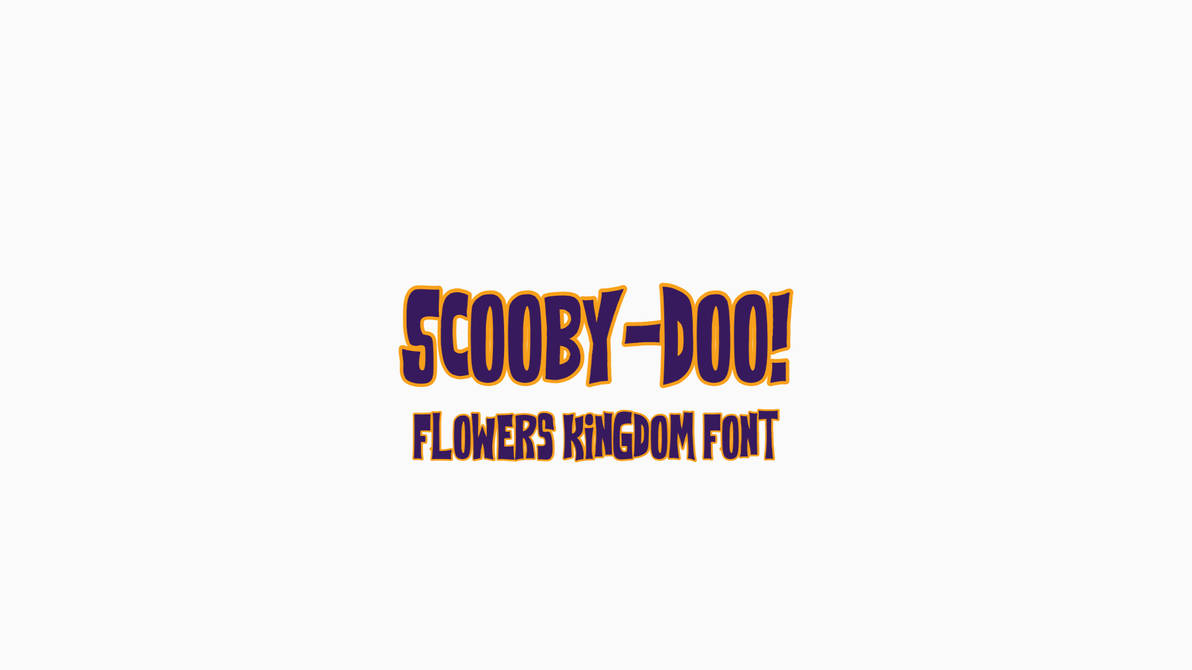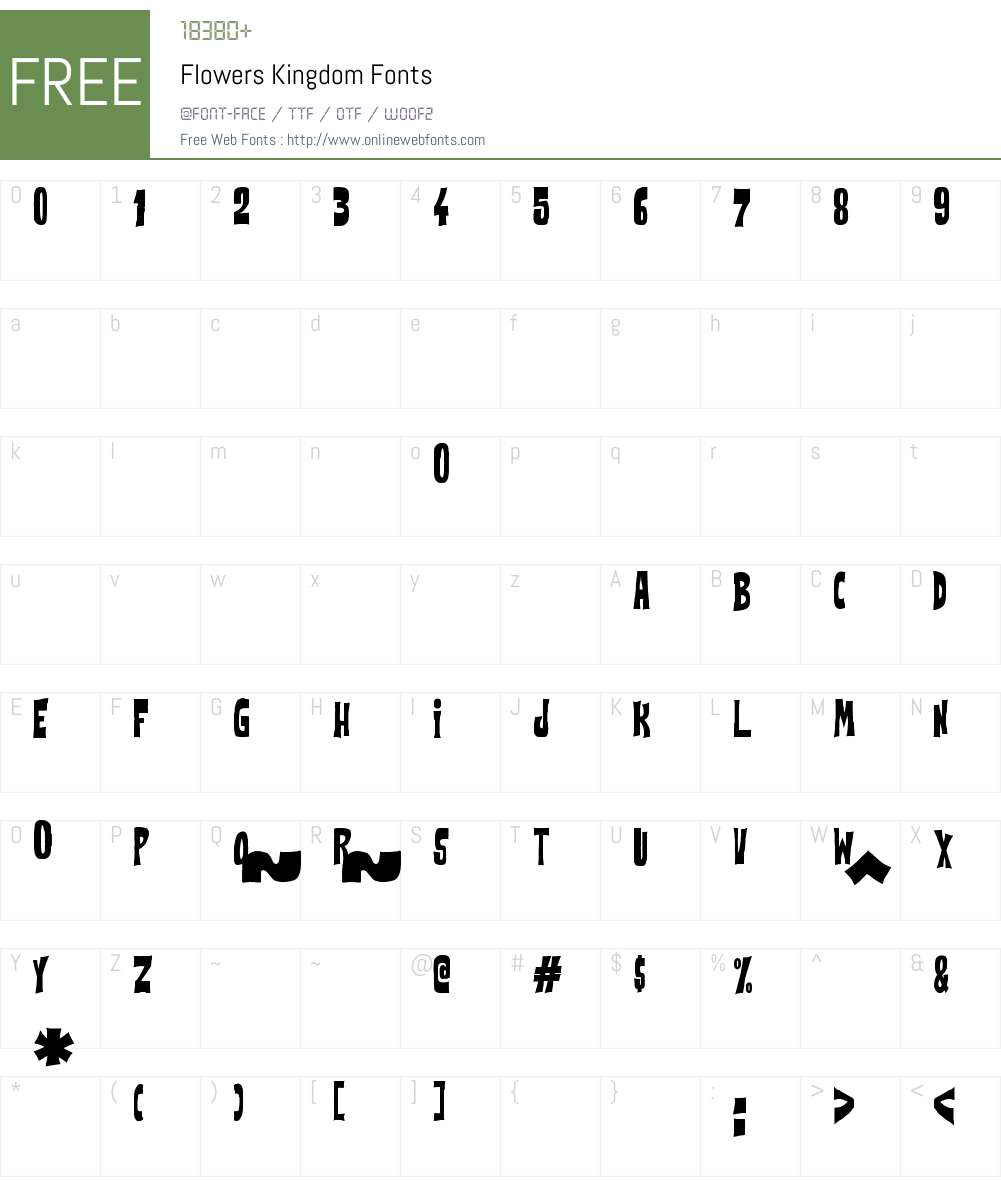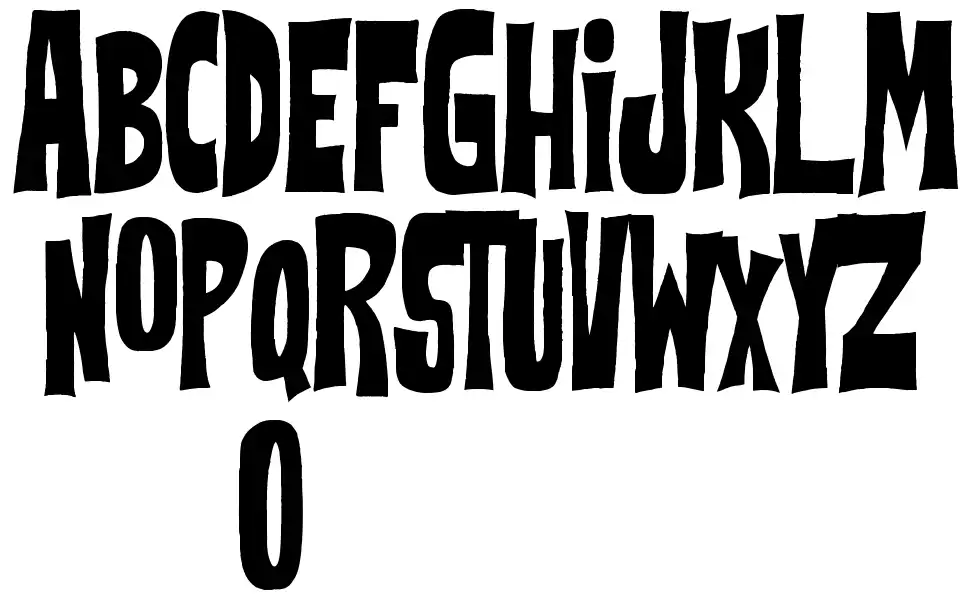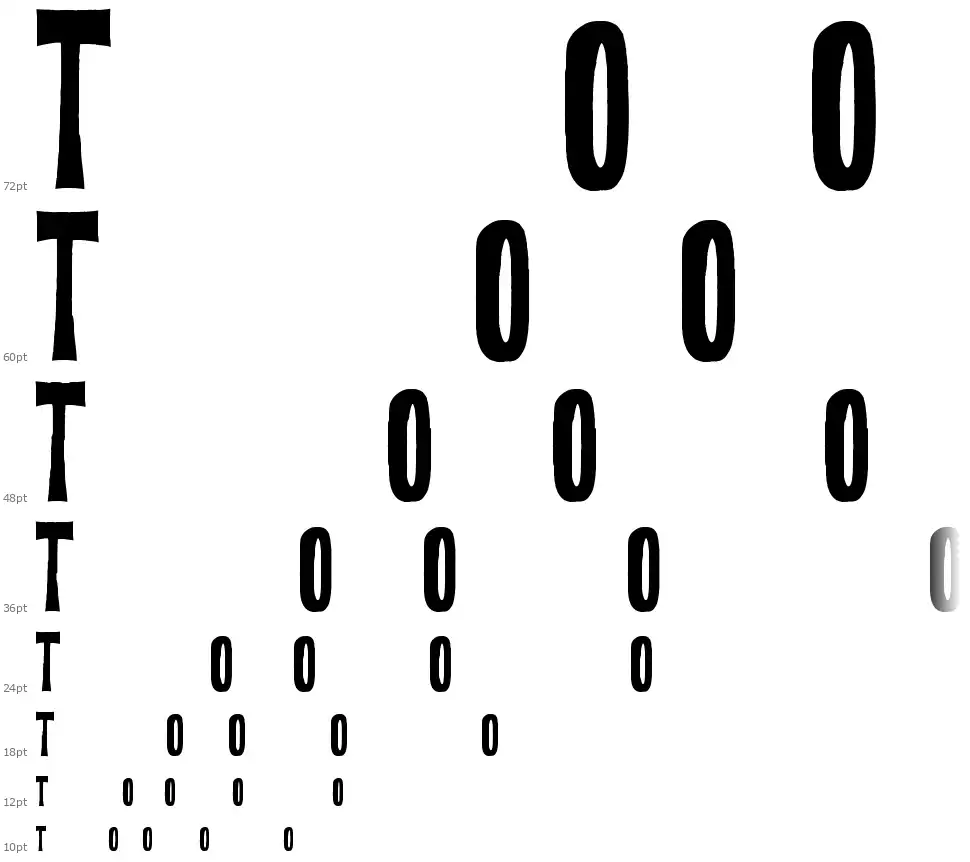
Flower Kingdom Font . Flowers kingdom is a fancy type font that can be used on any. flowers kingdom font has a retro, chunky, and funky vibe that was designed to express that mood from your content you can use. The flowers kingdom font was designed by imagex. flowers kingdom font download is available free from fontget. download flowers kingdom font for free! — flowers kingdom à € by imagex. download and install the flowers kingdom font for free from ffonts.net. ️ this font has been downloaded 300+ times. 721,453 downloads (414 yesterday) free for. flowers kingdom is the perfect font for all your fun designs. download free flowers kingdom font, view its character map and.
721,453 downloads (414 yesterday) free for. — flowers kingdom à € by imagex. flowers kingdom is the perfect font for all your fun designs. flowers kingdom font download is available free from fontget. The flowers kingdom font was designed by imagex. download free flowers kingdom font, view its character map and. flowers kingdom font has a retro, chunky, and funky vibe that was designed to express that mood from your content you can use. download and install the flowers kingdom font for free from ffonts.net. download flowers kingdom font for free! Flowers kingdom is a fancy type font that can be used on any.
Flower Kingdom Font ️ this font has been downloaded 300+ times. download free flowers kingdom font, view its character map and. download flowers kingdom font for free! flowers kingdom font download is available free from fontget. ️ this font has been downloaded 300+ times. The flowers kingdom font was designed by imagex. Flowers kingdom is a fancy type font that can be used on any. — flowers kingdom à € by imagex. flowers kingdom font has a retro, chunky, and funky vibe that was designed to express that mood from your content you can use. download and install the flowers kingdom font for free from ffonts.net. 721,453 downloads (414 yesterday) free for. flowers kingdom is the perfect font for all your fun designs.
Flowers Kingdom Font Download Free for Desktop & font Flower Kingdom Font flowers kingdom font download is available free from fontget. Flowers kingdom is a fancy type font that can be used on any. — flowers kingdom à € by imagex. flowers kingdom font has a retro, chunky, and funky vibe that was designed to express that mood from your content you can use. 721,453 downloads (414 yesterday) free. Flower Kingdom Font.
Flowers Kingdom font by imagex FontRiver Flower Kingdom Font The flowers kingdom font was designed by imagex. download flowers kingdom font for free! flowers kingdom is the perfect font for all your fun designs. Flowers kingdom is a fancy type font that can be used on any. ️ this font has been downloaded 300+ times. flowers kingdom font has a retro, chunky, and funky vibe that. Flower Kingdom Font.
Download free Flowers Kingdom font, free Flowers_Kingdom.ttf Regular Flower Kingdom Font Flowers kingdom is a fancy type font that can be used on any. flowers kingdom is the perfect font for all your fun designs. — flowers kingdom à € by imagex. download and install the flowers kingdom font for free from ffonts.net. flowers kingdom font has a retro, chunky, and funky vibe that was designed to. Flower Kingdom Font.
Flowers Kingdom Font Flower Kingdom Font download and install the flowers kingdom font for free from ffonts.net. The flowers kingdom font was designed by imagex. ️ this font has been downloaded 300+ times. flowers kingdom is the perfect font for all your fun designs. download flowers kingdom font for free! download free flowers kingdom font, view its character map and. flowers. Flower Kingdom Font.
Flowers Kingdom font Flower Kingdom Font download free flowers kingdom font, view its character map and. Flowers kingdom is a fancy type font that can be used on any. flowers kingdom is the perfect font for all your fun designs. ️ this font has been downloaded 300+ times. download flowers kingdom font for free! flowers kingdom font has a retro, chunky, and. Flower Kingdom Font.
the handwritten font kingdom is designed to look like it has flowers Flower Kingdom Font flowers kingdom is the perfect font for all your fun designs. 721,453 downloads (414 yesterday) free for. flowers kingdom font download is available free from fontget. ️ this font has been downloaded 300+ times. download free flowers kingdom font, view its character map and. Flowers kingdom is a fancy type font that can be used on any.. Flower Kingdom Font.